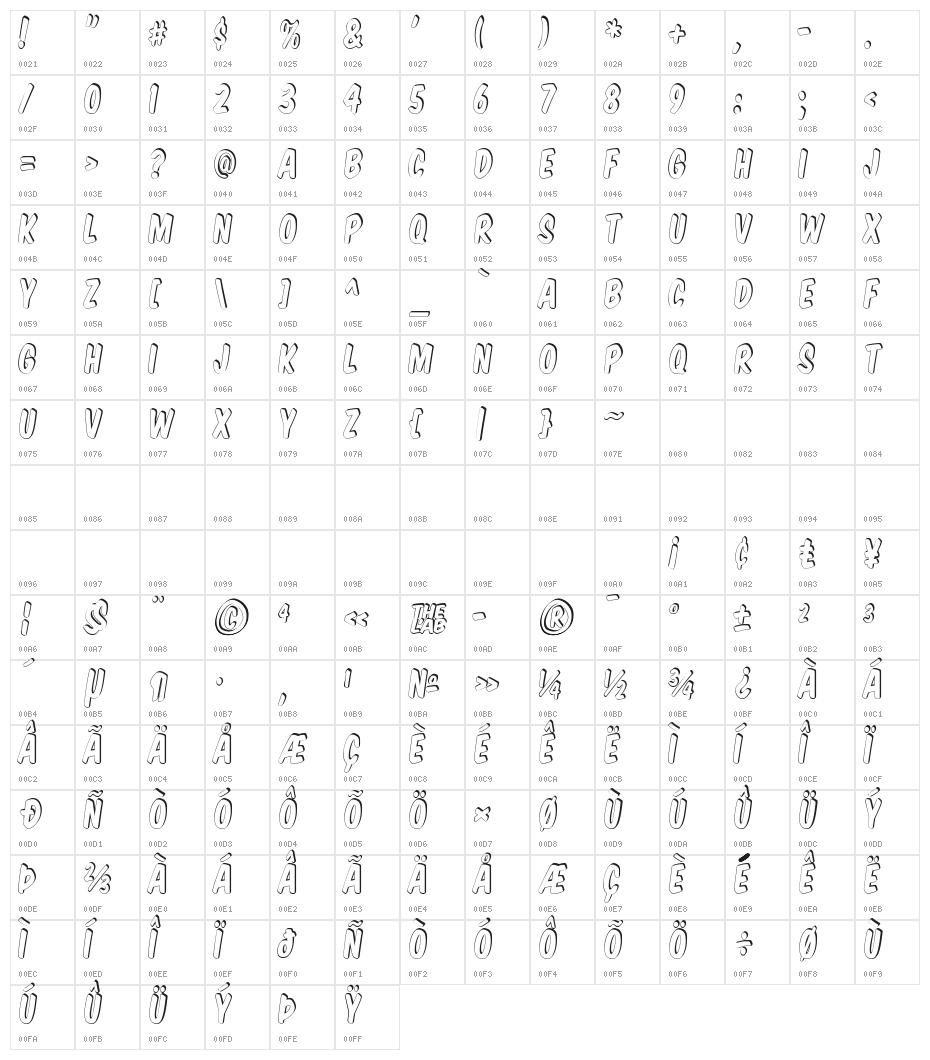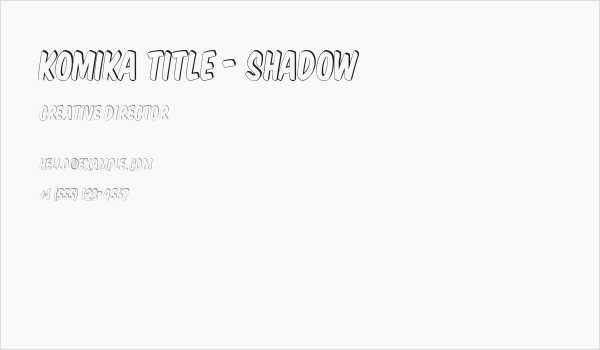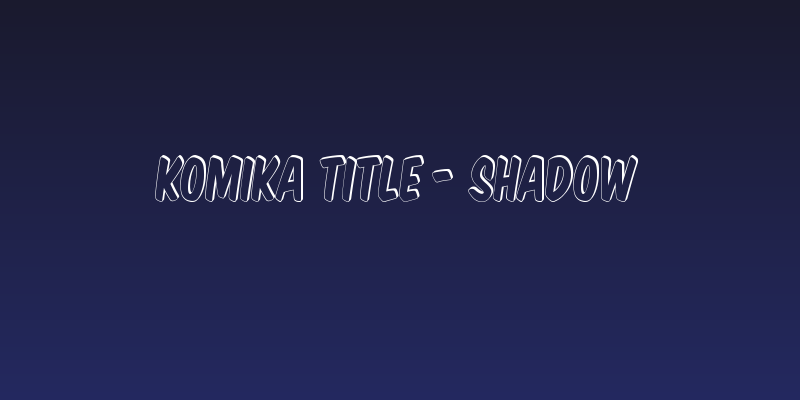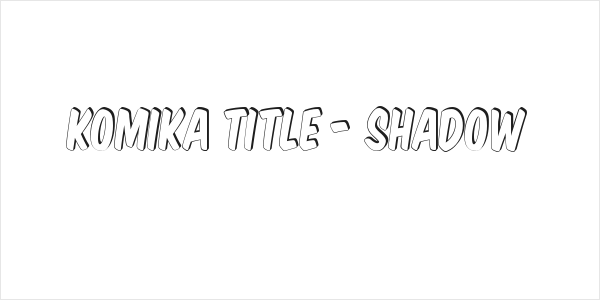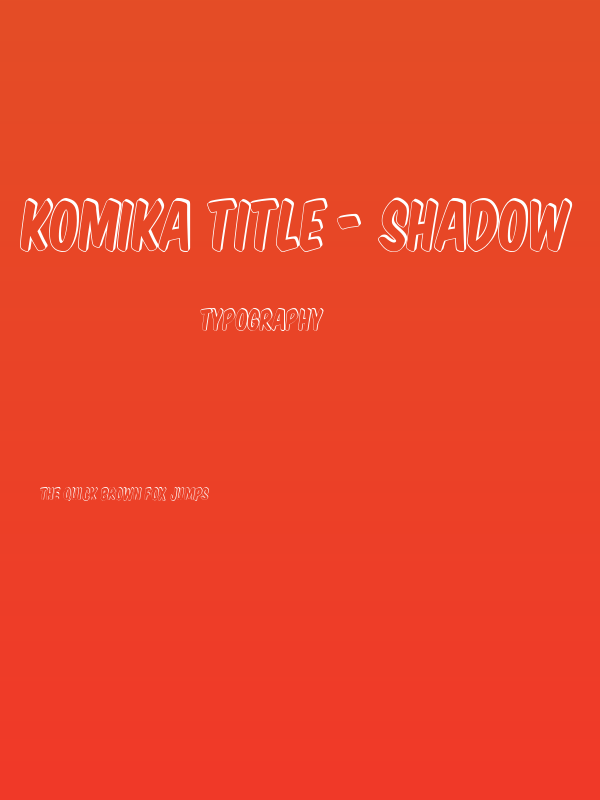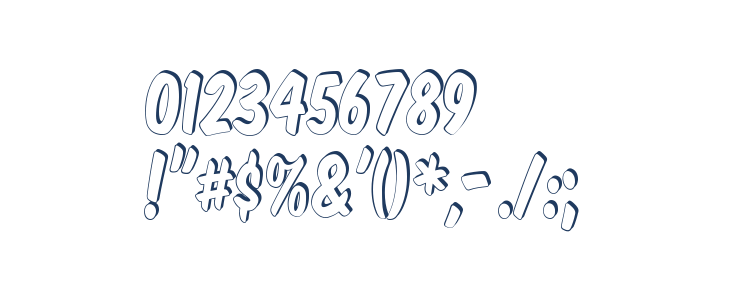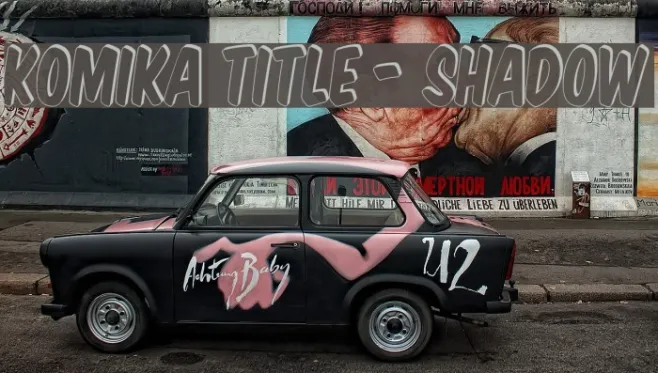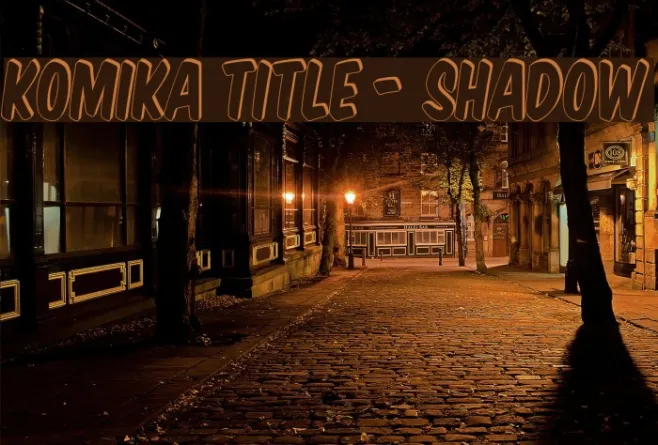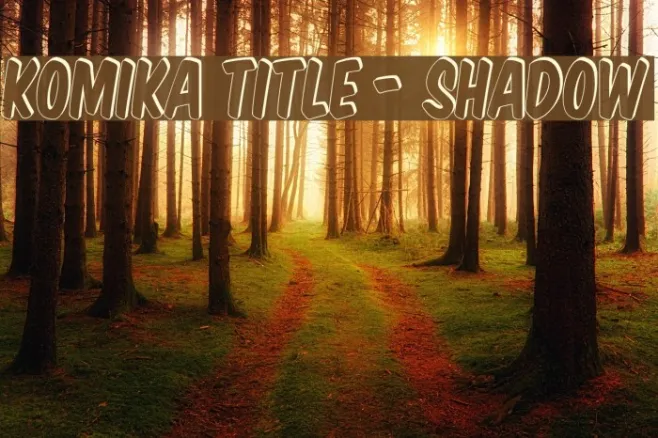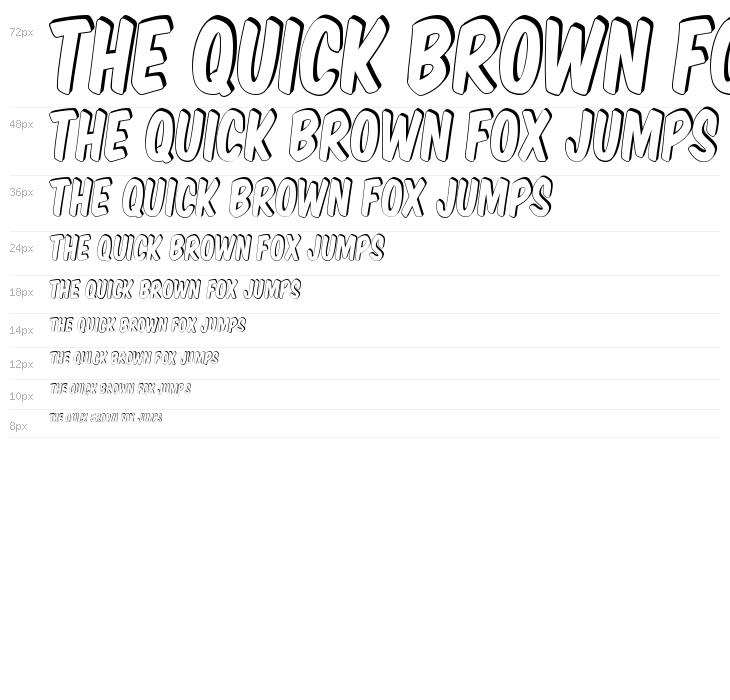
Komika Title - Shadow Font
Komika Title - Shadow Description
This font features a bold, playful style with a distinct shadow effect that gives it a three-dimensional appearance. The characters are rounded and slightly condensed, adding to the comic and whimsical feel. The uppercase letters are prominent, while the lowercase letters maintain the same playful essence. Numbers and special characters are equally bold and maintain the shadow effect, ensuring consistency across all glyphs. The font's design is ideal for projects that require a fun and engaging visual impact, such as comic books, children's books, or playful branding. Its boldness and shadow effect make it stand out, capturing attention and adding a lively touch to any design.
| Overall Style | Playful, Comic |
| Proposed Projects | Comic books, children's books, playful branding, posters, and fun merchandise. |